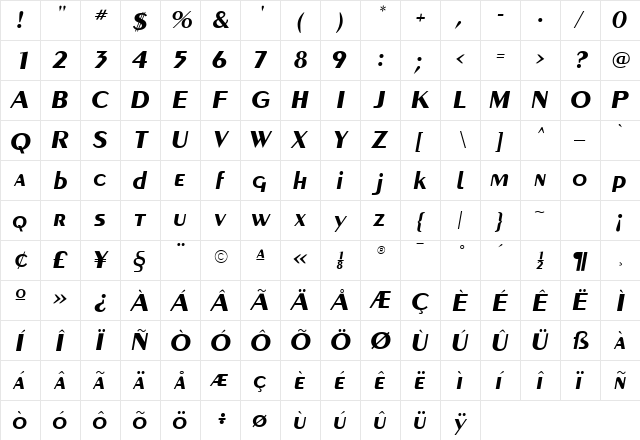
Carnati SSi Bold Italic
Design Context for Carnati SSi Typeface
Carnati SSi takes a measured approach to typography — its balanced proportions and neutral character make it a reliable workhorse for both digital and print work. The slanted form adds forward momentum and visual energy. The heavy weight commands attention and anchors typographic hierarchies.